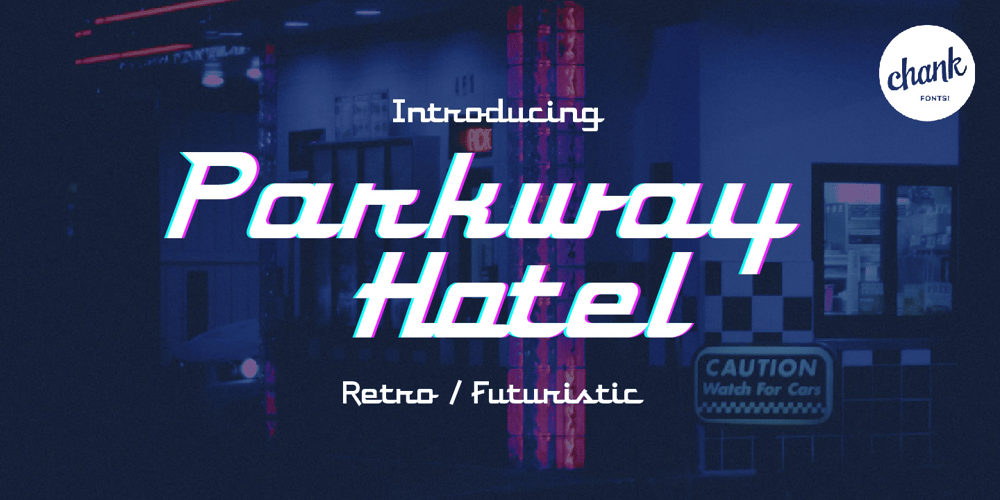
Parkway
Parkway font
Parkway Font Family was designed by Chank Diesel and published by Chank. Parkway contains 3 styles and family package options. The Parkway font family was inspired the Parkway Theater marquee in south Minneapolis and the abandoned hotel signage along a strip of U.S. highway running from Tallahassee to Tampa in Florida. A classic retro font trio, the Parkways speak of nostalgia and Americana. Looks like the little metal tag that dealers stick on the trunk of new cars.